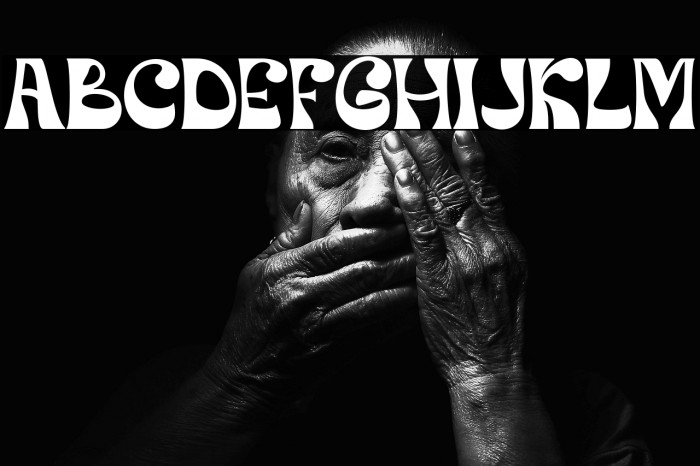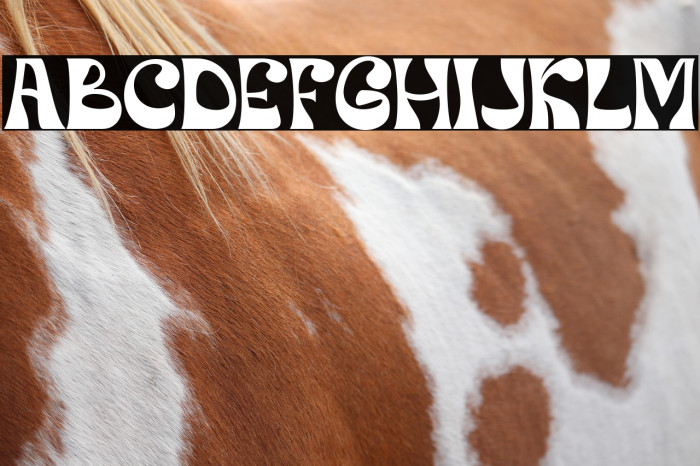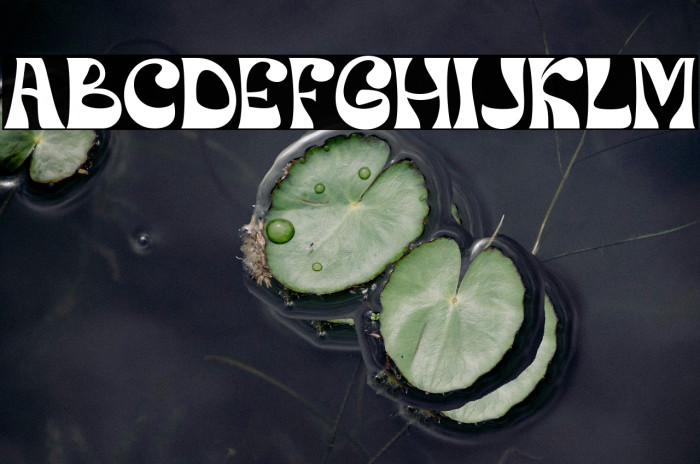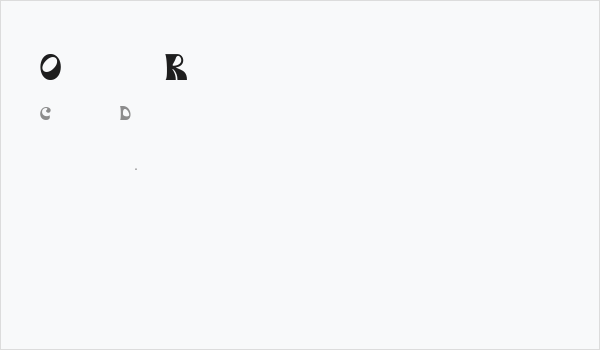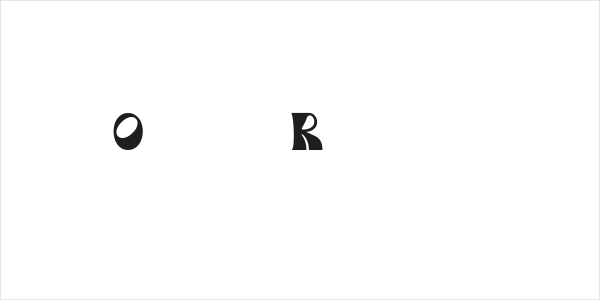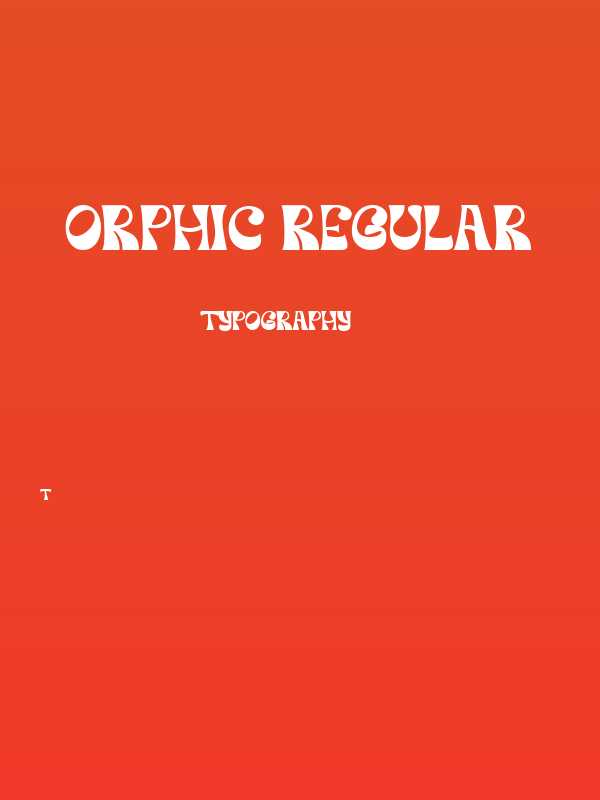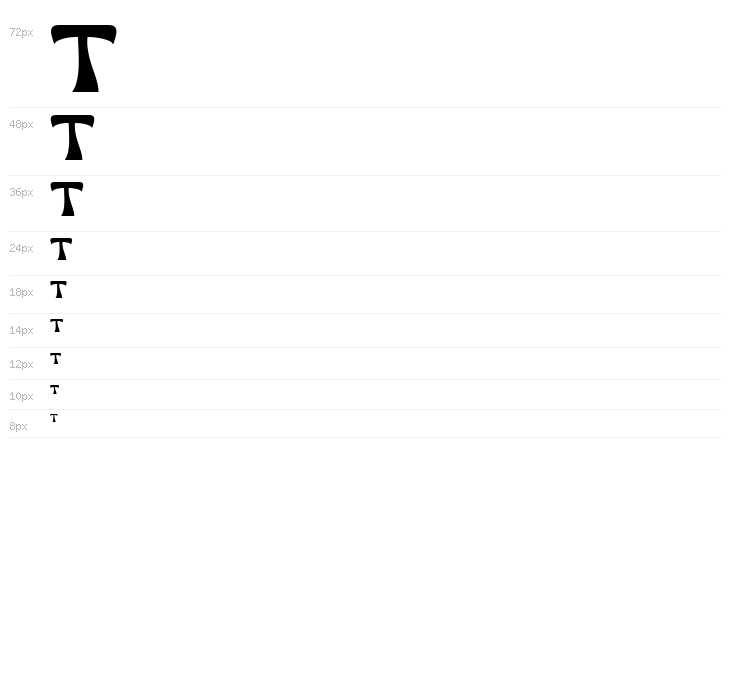
Orphic Regular Font
Orphic Regular Description
This font features a bold and artistic design with a unique blend of curves and sharp edges, creating a striking visual impact. The characters are crafted with a high contrast between thick and thin strokes, giving it a dynamic and energetic appearance. The uppercase letters exhibit a playful yet sophisticated style, making it suitable for creative and modern projects. The font's decorative elements and distinctive shapes make it stand out, adding a touch of flair to any design.
| Overall Style | Modern, Artistic |
| Proposed Projects | Ideal for posters, branding, album covers, and creative advertising. |